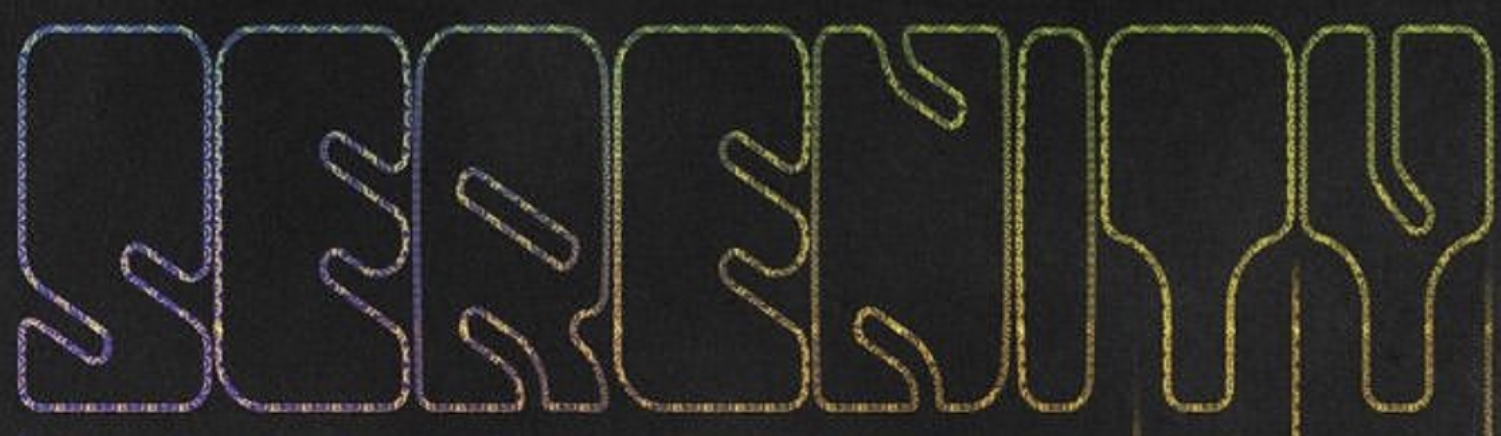
On Saturday, I discovered a design from Riley Ben Levine while I was scrolling through the web. But to detail this, there are condensed blocky glyphs with round corners, reverse contrast on the T, and shapes at a 35° angle.
The font's called Ashoka.